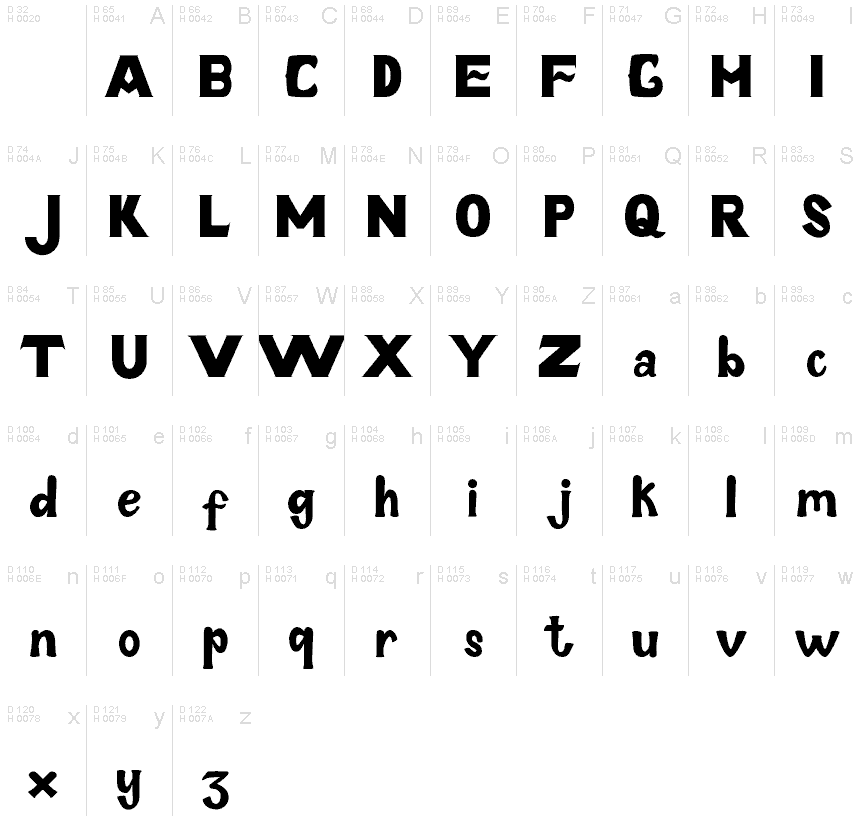
Ganley Demo Regular
Ganley font by Craft Supply Co. is a bold cartoon display typeface that combines the expressiveness of retro vibes with whimsical characteristics. It balances an artistic flair with a casual aesthetic, developing a friendly and approachable mood. Each character delivers emotion effectively since the font is mostly inspired by humanistic handwriting and calligraphy styles.
Use Ganley in branding, advertisement materials, large posters, print packaging designs, brochures, titles in magazines or website landing pages; wherever depth is required to project an idea. Emphasis on characters makes it perfect for visual identity and logo projects as well as many other projects.